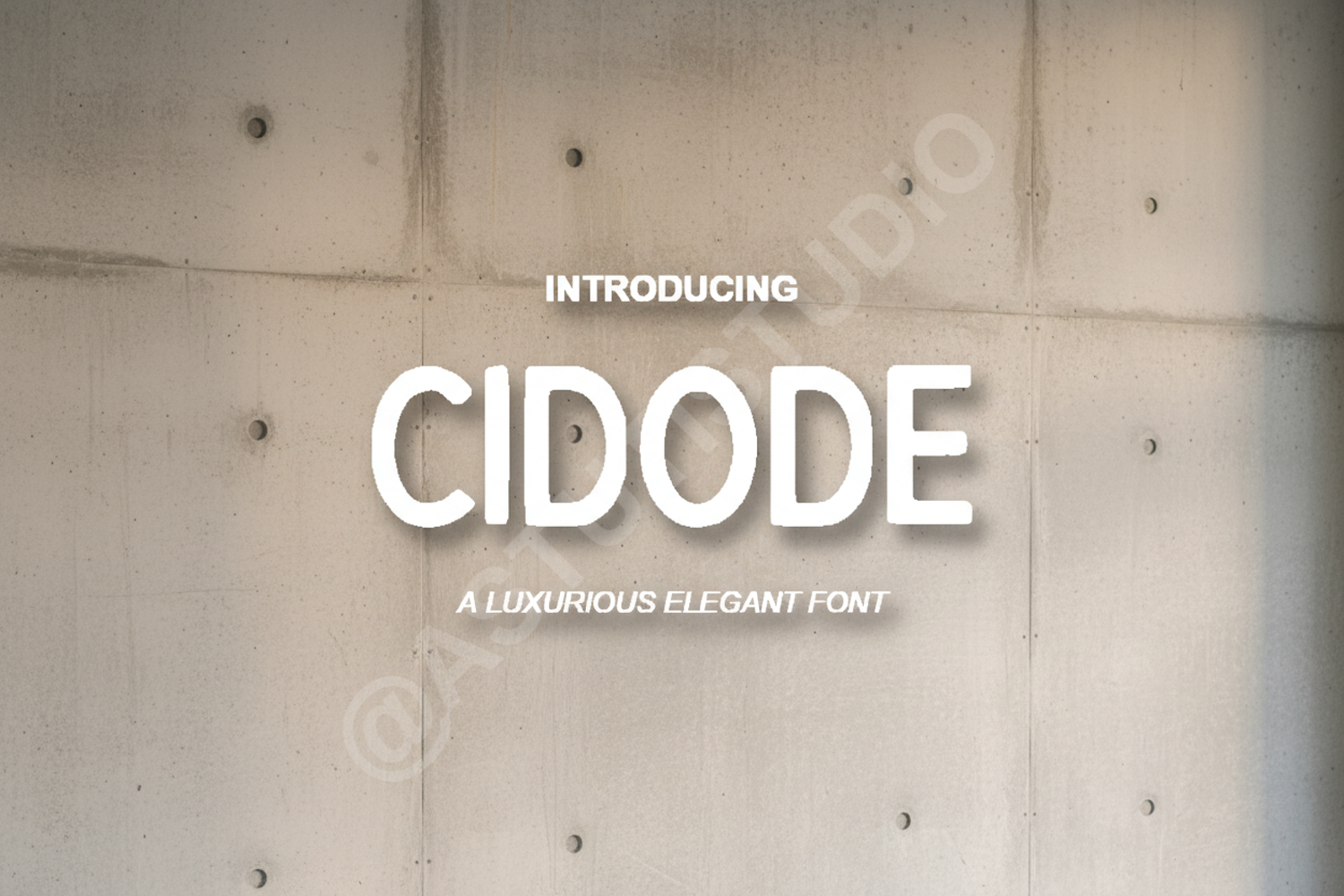
Cidode - Sophisticated & Elegant Modern Serif
Cidode
Cidode is a premium serif typeface crafted for designers who demand sophistication and versatility. With its refined strokes and contemporary flair, Cidode brings a touch of luxury to any creative project. Whether you are building a brand from scratch or designing high-end editorial content, this font provides the perfect balance of readability and style.
- Full set of uppercase and lowercase letters
- Numerals, punctuation, and symbols
- Elegant ligatures and stylistic alternates
- Comprehensive multi-language support
- Luxury Branding: Create memorable logos and high-end brand identities.
- Wedding Stationery: Perfect for elegant invitations, menus, and place cards.
- Editorial Design: Ideal for magazine headers, layouts, and body text.
- Social Media: Elevate your Instagram, Pinterest, and digital marketing graphics.
- Product Packaging: Add a premium, polished feel to labels and boxes.